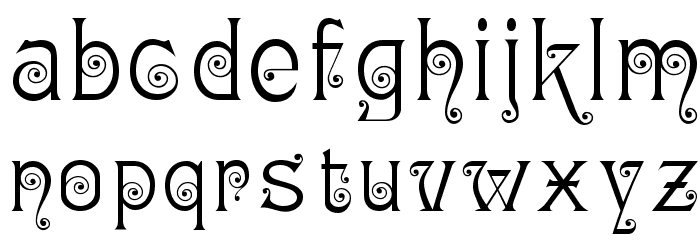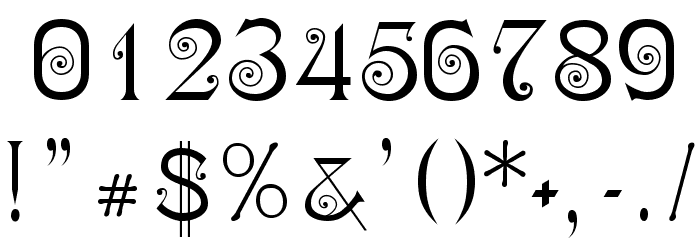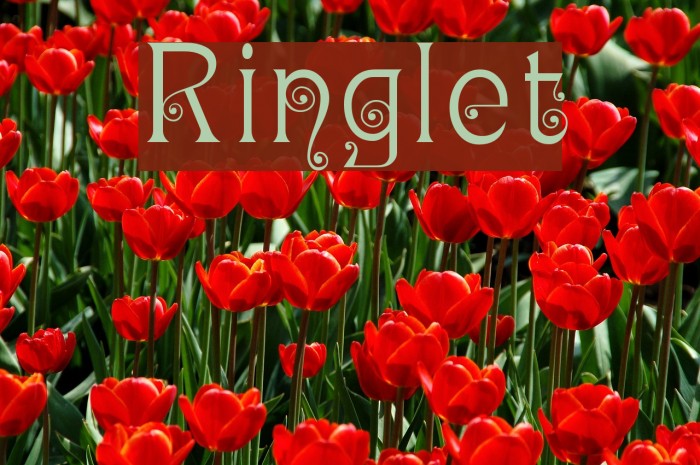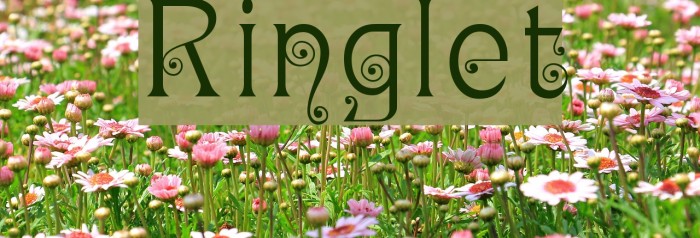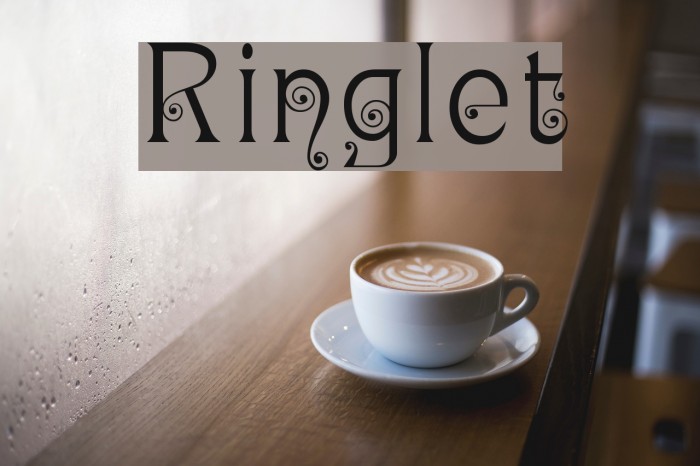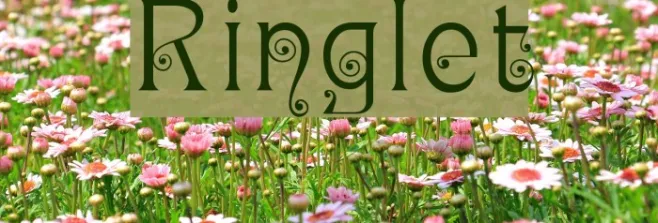
Ringlet Font
This font features a whimsical and decorative style, characterized by its playful curls and swirls integrated into each letterform. The uppercase letters exhibit a bold presence with intricate spiral embellishments, while the lowercase letters maintain a consistent theme with slightly more subtle flourishes. The numerals are equally ornate, each digit incorporating a unique spiral or curl that adds to the font's overall charm. Special characters are designed with the same attention to detail, ensuring a cohesive look across all glyphs. This font's distinctiveness makes it ideal for creative and artistic projects where a touch of elegance and playfulness is desired.
A whimsical, decorative font with playful curls and swirls.
- Proposed Projects: Ideal for invitations, greeting cards, artistic posters, and branding that requires a unique and playful touch.
- Use Case: Headlines, Logos, Artistic projects